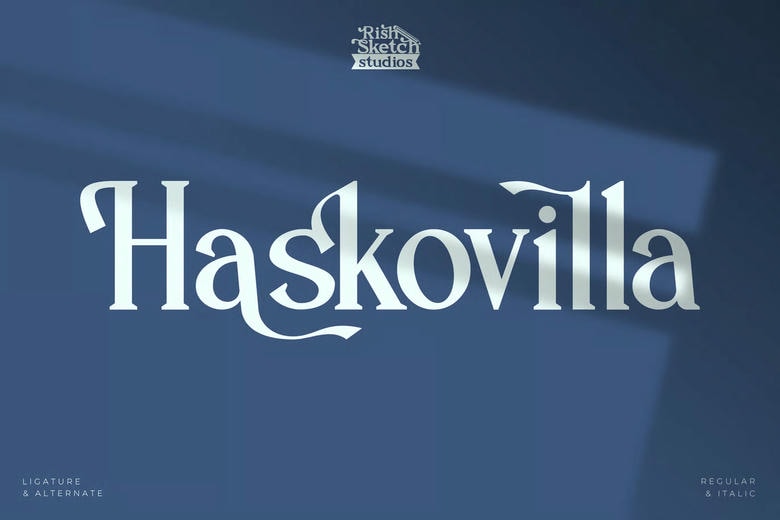
Haskovilla Font
Haskovilla Serif Font, from Rishsketch Studios, is a premium Serif Typeface Font, This typeface is perfect for elegant logos, branding, travel promotions, layout magazines, beauty products, product packaging, quotes, or simply as a stylish text overlay onto any background image.
Haskovilla Serif Font